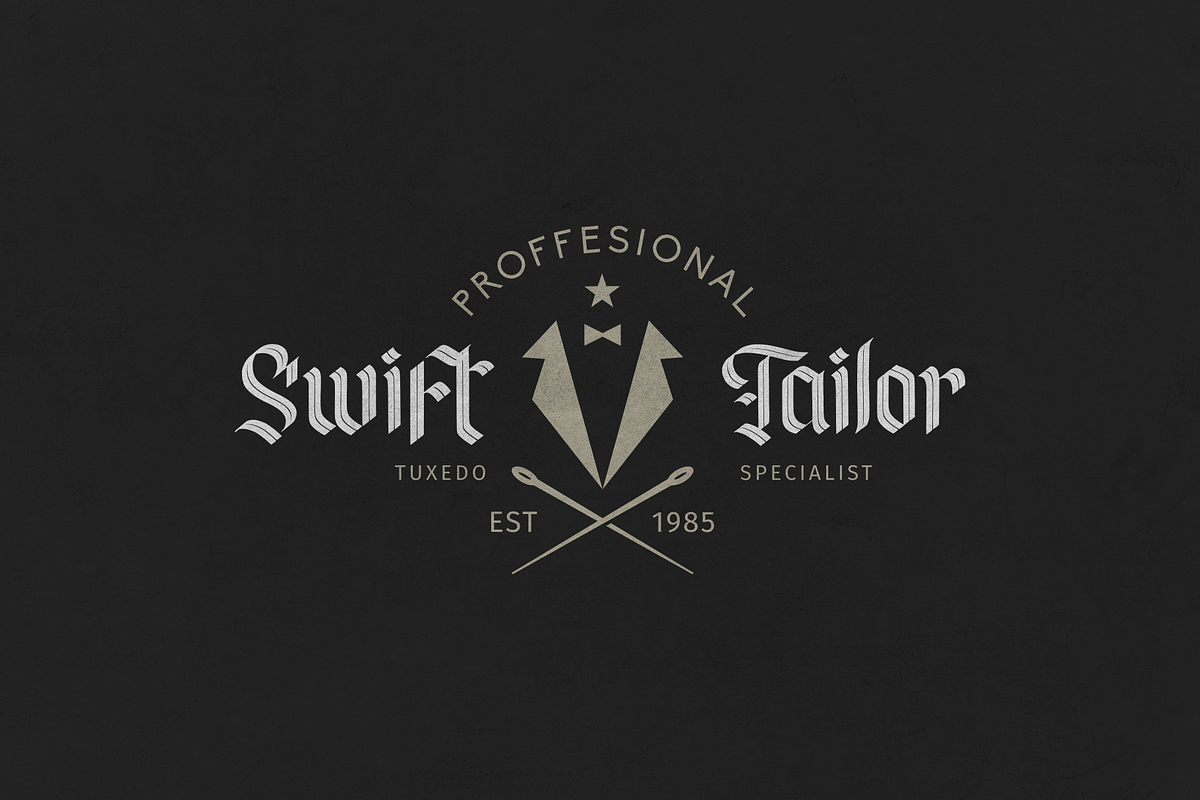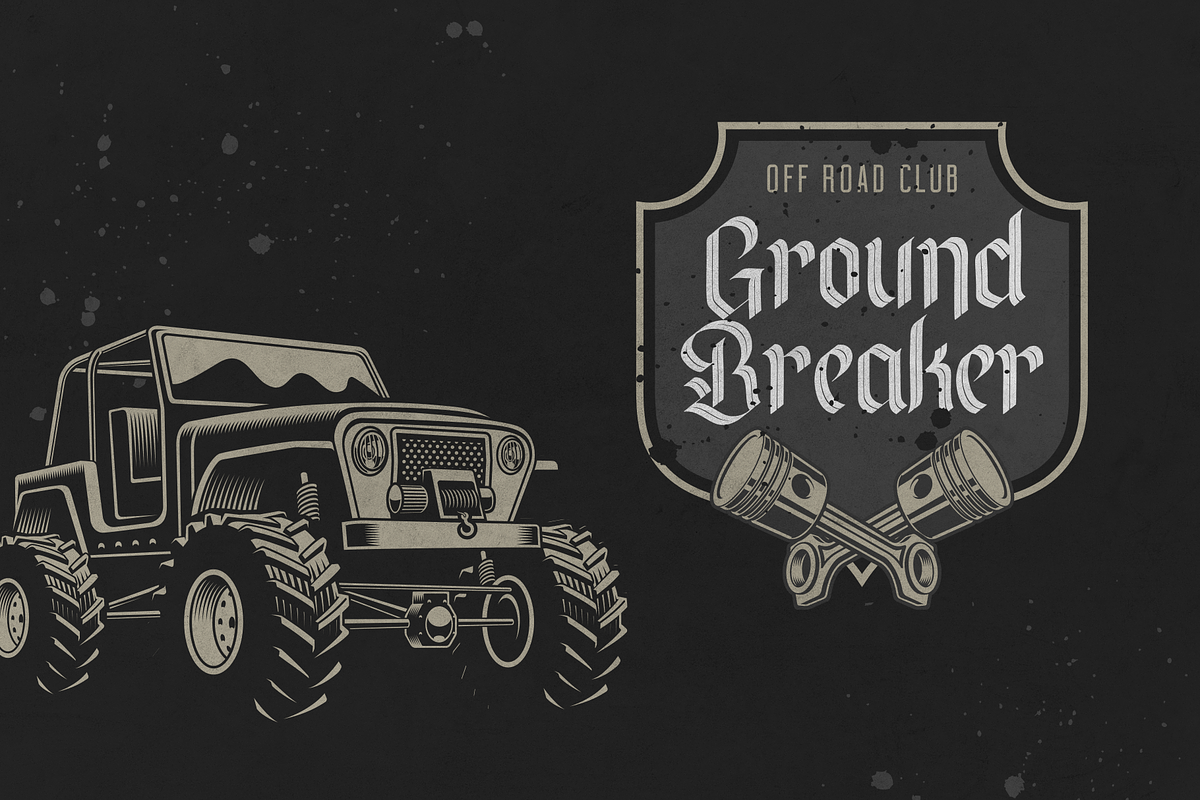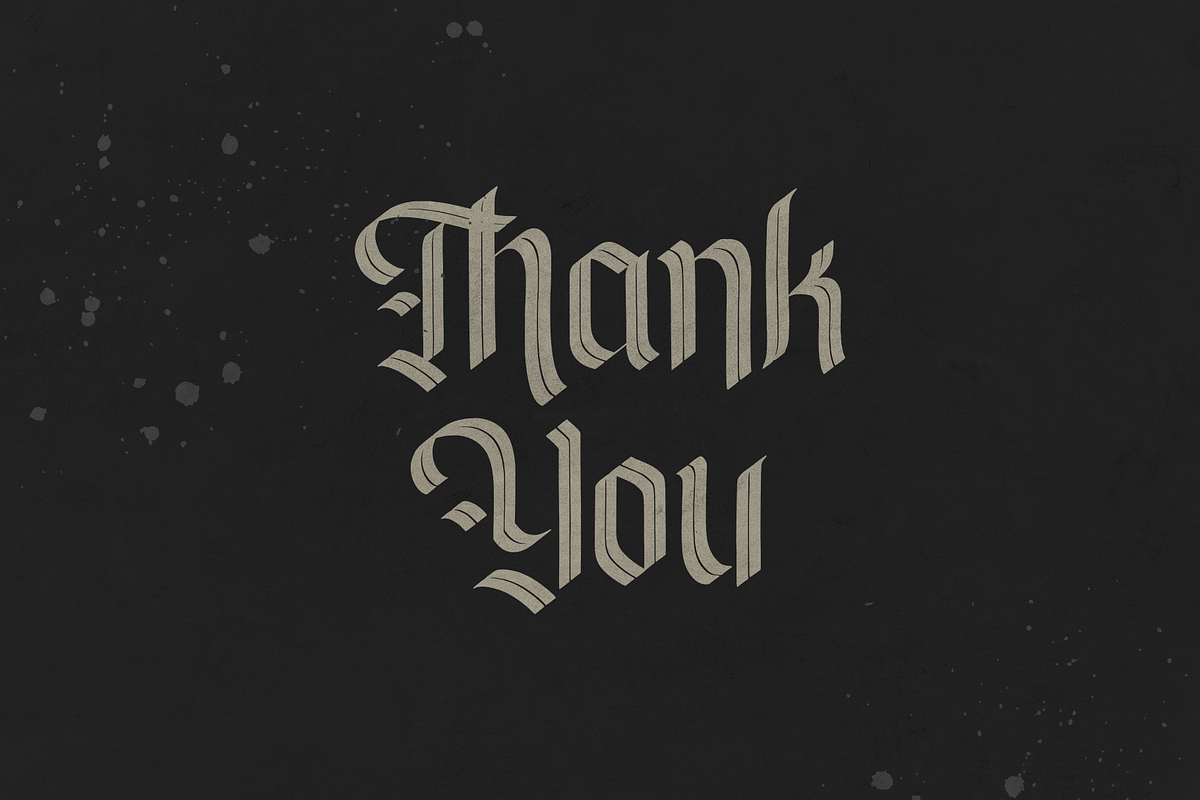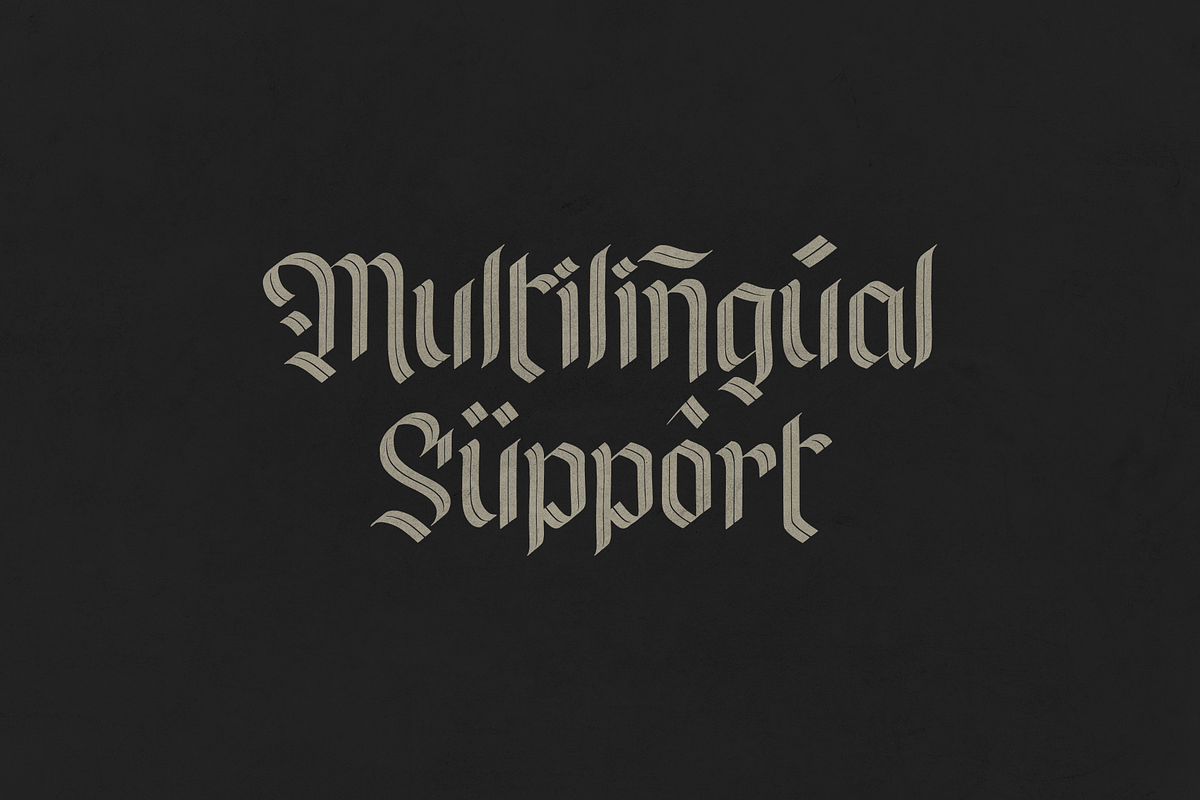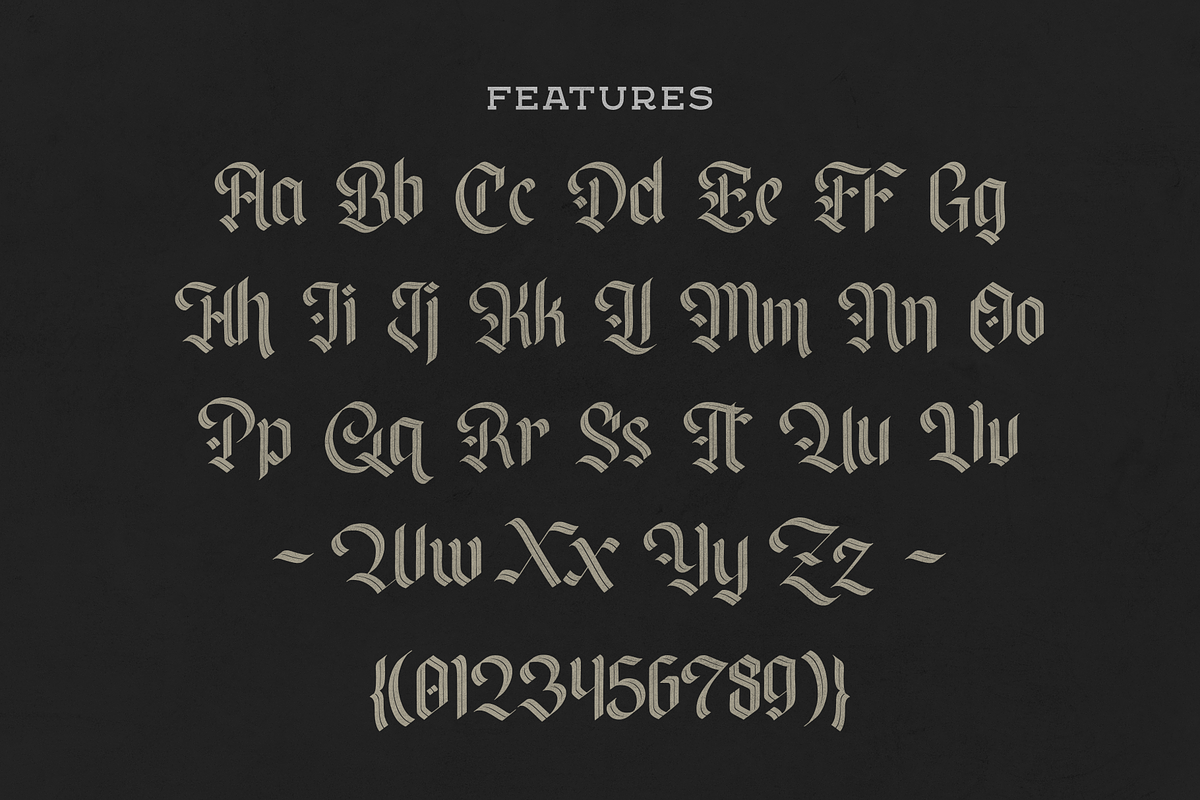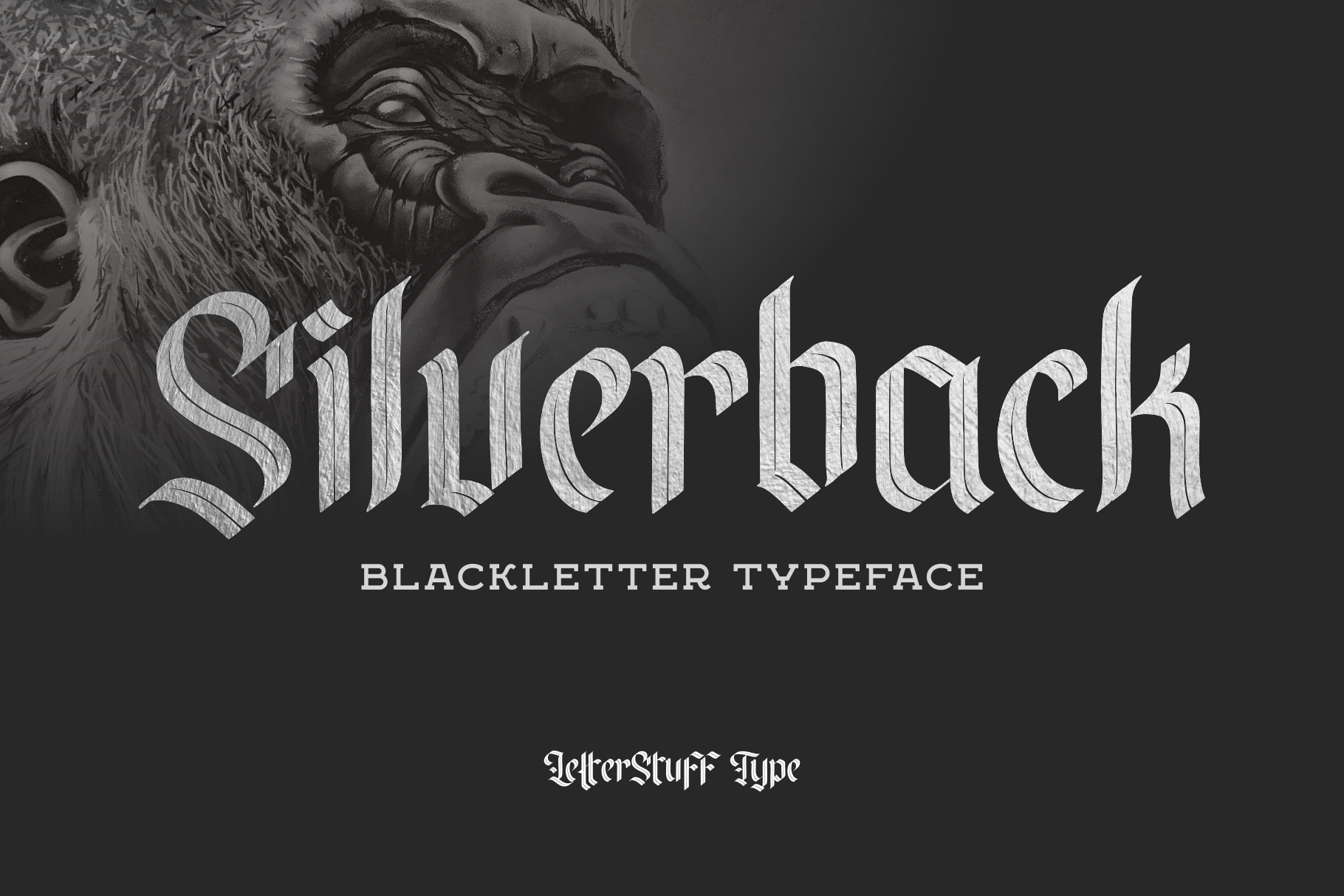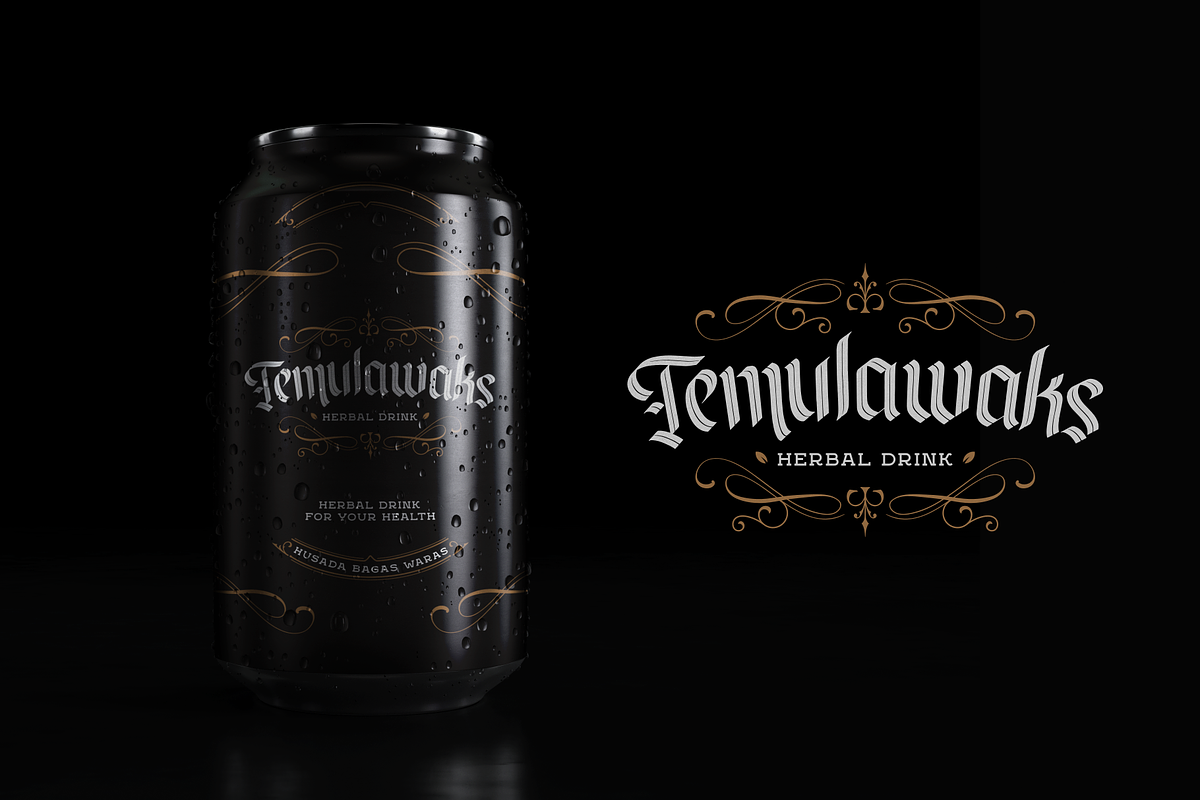
Silverback - Blackletter Typeface
Introducing, Silverback typeface with double stripe blackletter style. Unique and stylish for your masculine, gothic and vintage design style. Also support for multilingual characters. Available in regular and italic